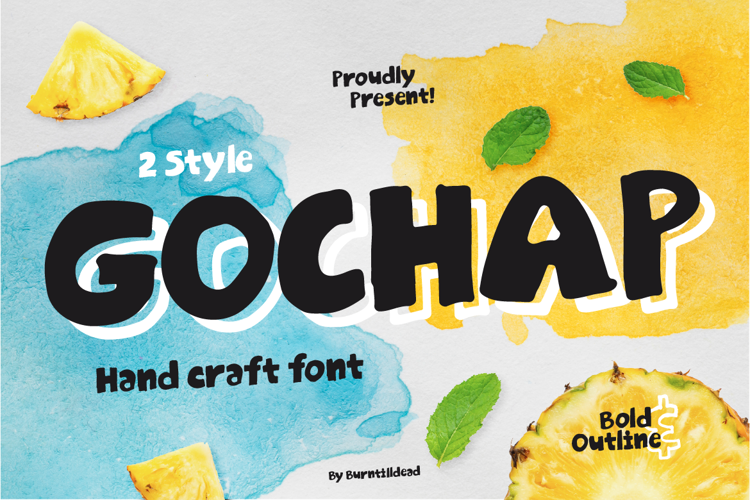
Gochap Font
Gochap is a fun handcraft font with bold and outline styles. Perfect for summer designs, kids branding, posters, packaging, and playful headlines.